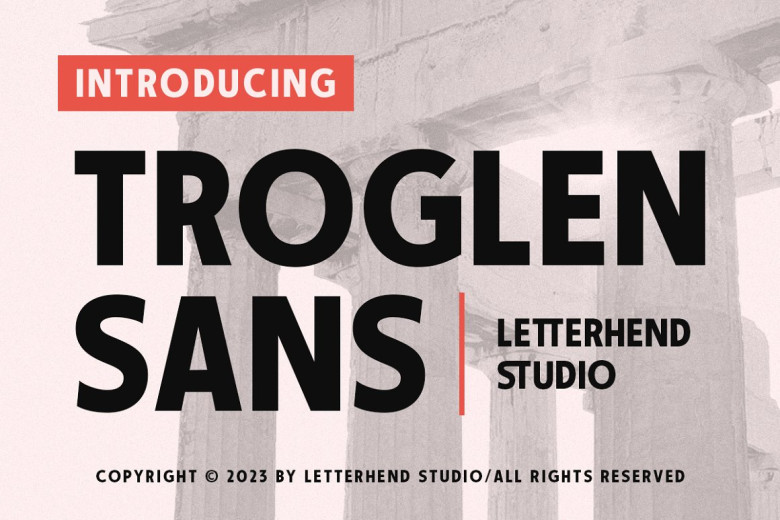
Troglen Sans Font
Troglen Sans is a professional, bold sans-serif font that’s perfect for grabbing attention. With a modern, casual feel and heavy strokes it’s ideal for headlines and making a statement that’s both strong confident. And in many different places too.
Troglen Sans Serif Font